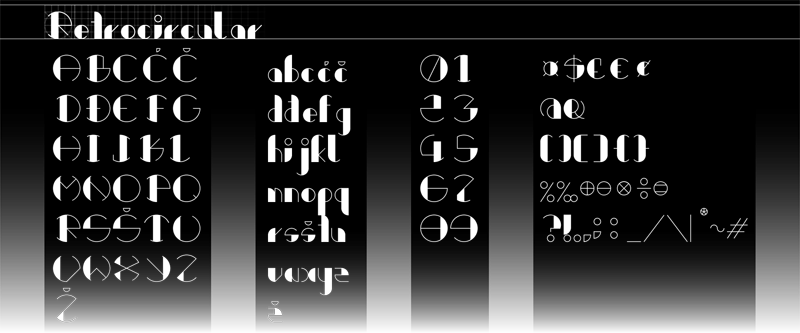
Font name: | Retrocircular |
Author: | model850 |
Note by model850 | |
Font inspired by art deco, simple and clean. It's free for everione to use. Enjoy ! :D |